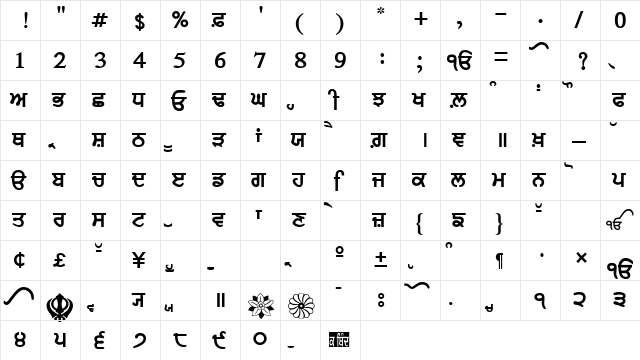
AnmolLipiThickTight Regular
Design Context for AnmolLipiThickTight Typeface
AnmolLipiThickTight offers clean, dependable letterforms without strong stylistic allegiance, making it a practical choice for designers who need flexibility.